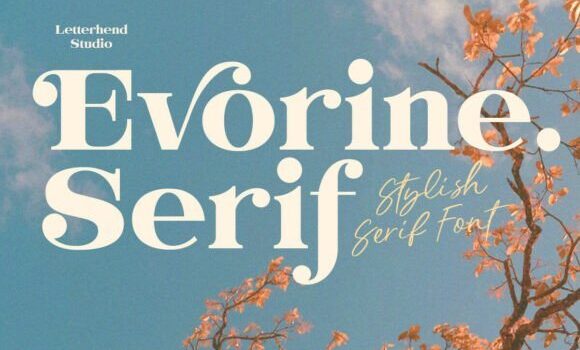
Evorine Serif Font – Free Download Introduction to Evorine Serif Font Evorine Serif is a dreamy little statement font with soft curves, bold elegance, and that effortlessly pretty look that feels like golden hour in typography form. 📸 Preview Gallery